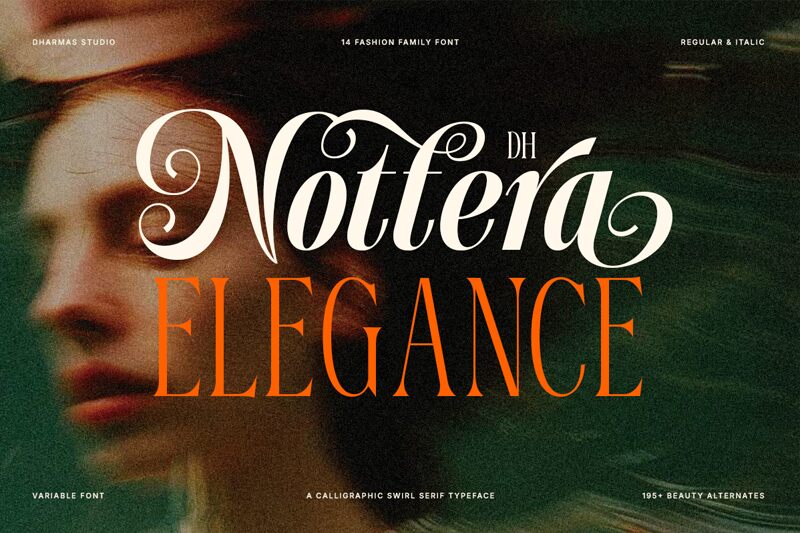
Dh Nottera Elegance font by Dharmas Foundry is a free serif font that embodies sophistication and artistic luxury. Inspired by traditional calligraphy, its design features calligraphic swirl serifs with ornate flourishes and a seamless flow. The font is perfect for those seeking to infuse a touch of elegance in their projects, offering a harmonious blend of historical charm and contemporary style.
Ideal for fashion branding, high-end invitations, and luxury packaging, Dh Nottera Elegance can also enhance logo designs, book covers, wedding invitations, restaurant menus, posters, greeting cards, banners, certificates, and boutique signages. Its sophisticated and artistic aesthetic makes it versatile across varying design platforms.